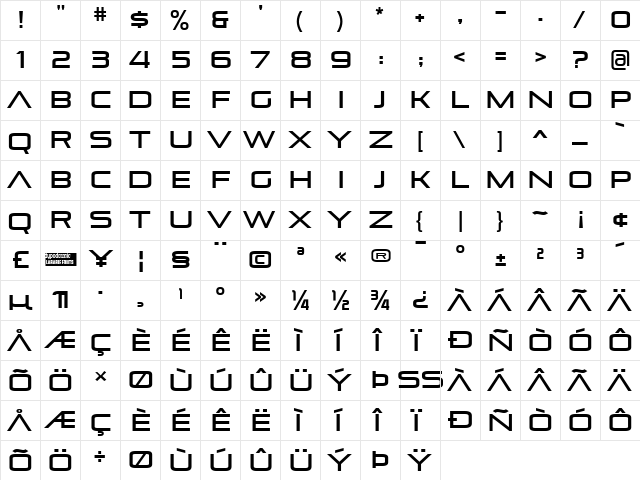
Pirulen Regular
Design Context for Pirulen Typeface
Pirulen offers clean, dependable letterforms without strong stylistic allegiance, making it a practical choice for designers who need flexibility.